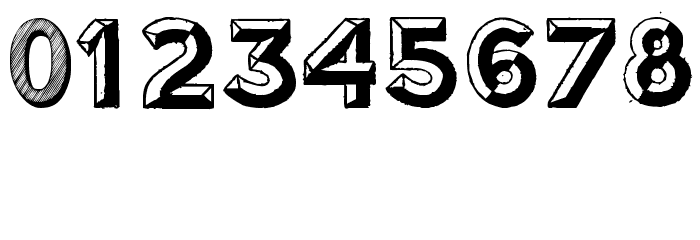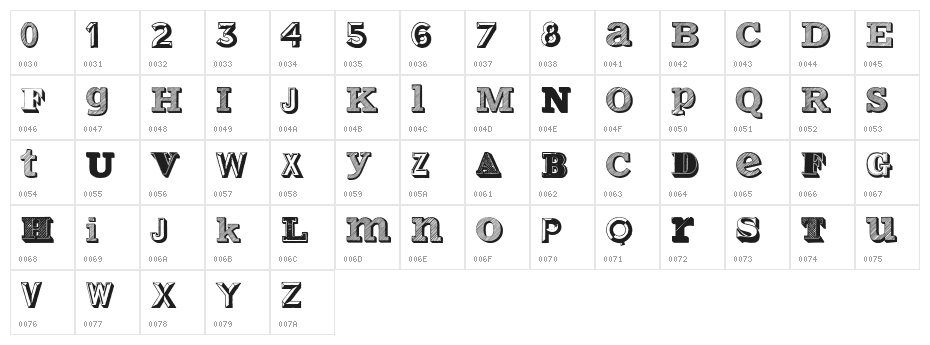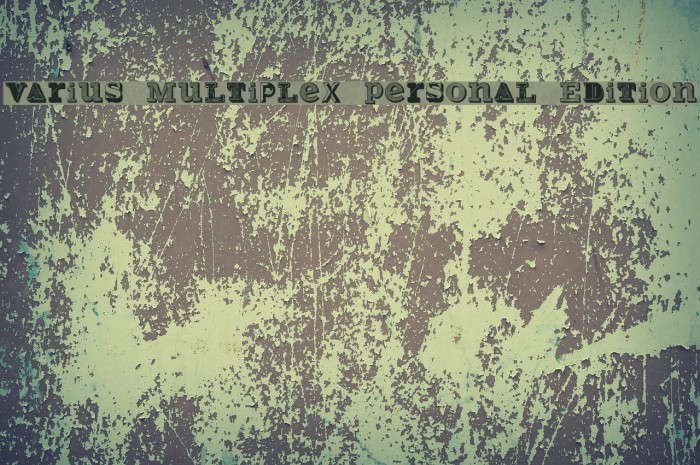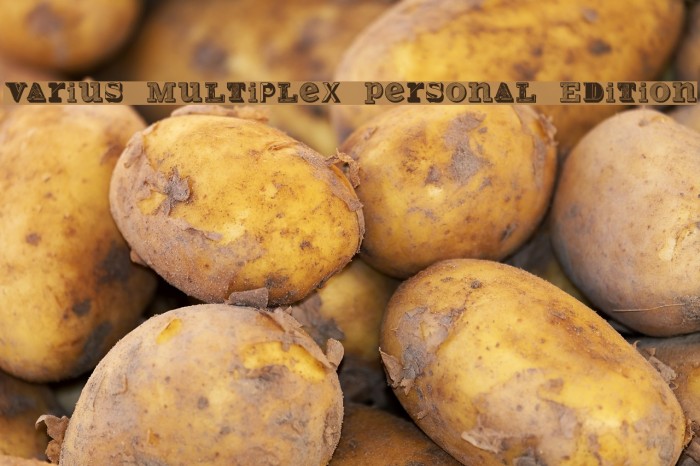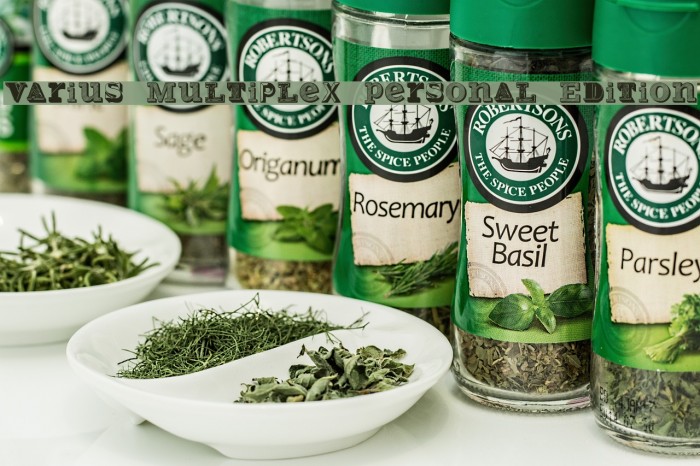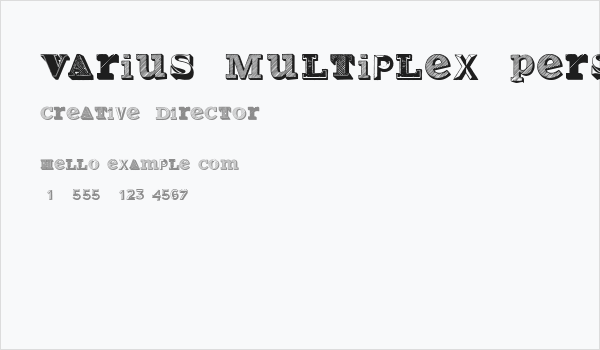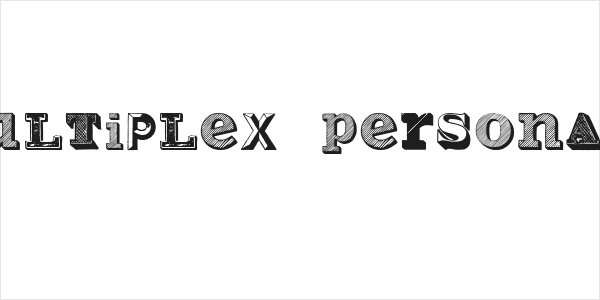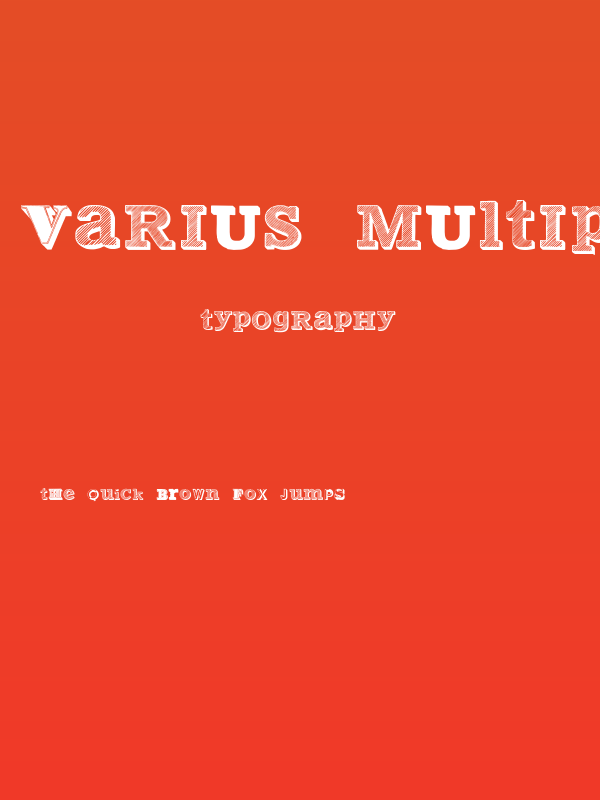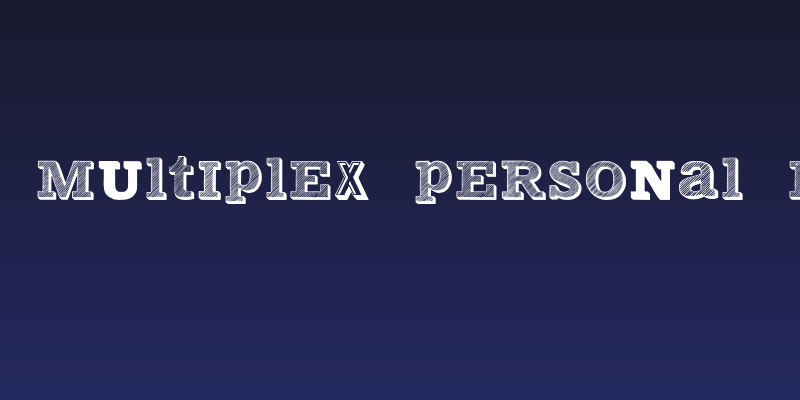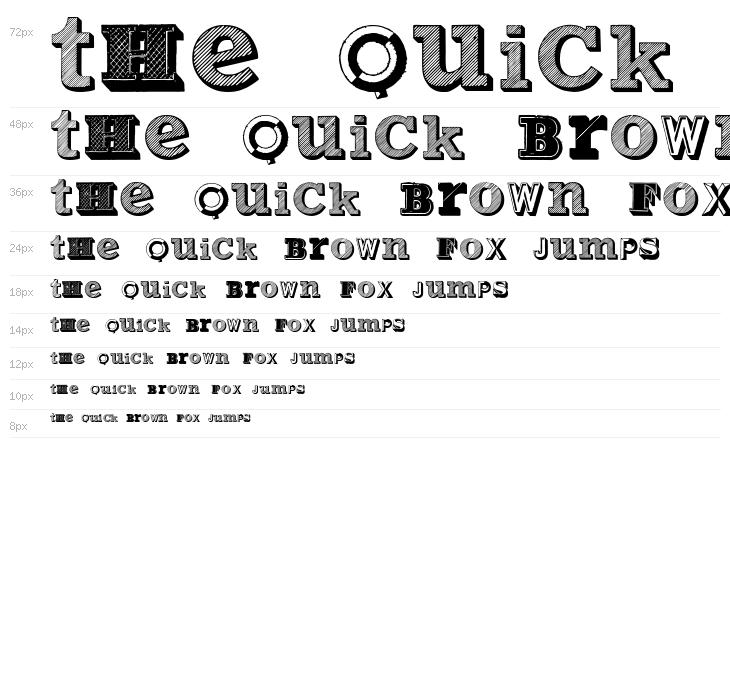
Varius Multiplex Personal Edition Font
Varius Multiplex Personal Edition Description
This font is a bold and decorative typeface that features a variety of textures and patterns within each character. The uppercase and lowercase letters are designed with a playful and artistic flair, incorporating elements such as stripes, dots, and shading. The numbers follow the same aesthetic, providing a cohesive look across all characters. The font's unique style makes it stand out, offering a vintage yet modern feel that is both eye-catching and versatile. Its intricate design details make it suitable for creative projects that require a distinctive and artistic touch.
| Overall Style | Vintage, Modern |
| Proposed Projects | Ideal for posters, branding, packaging, and any creative project that requires a standout, artistic typeface. |